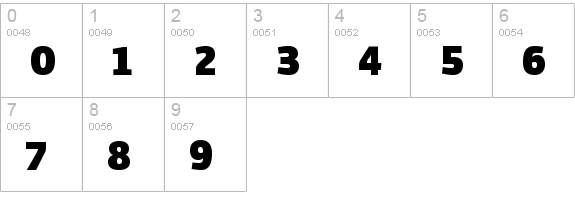
Vinkel Black Font Details
Vinkel Black is a maximum-weight, dramatic variant in the Vinkel typeface family \xE2\x80\x94 well suited to maximum-impact headlines, posters, and packaging.
Vinkel Black font is a modern and stylish typeface that exudes elegance and sophistication. With its clean lines and bold design, Vinkel Black is perfect for creating eye-catching headlines, logos, and branding materials. This versatile font is sure to make your designs stand out and leave a lasting impression. What's more, Vinkel Black font is available for free download at FontsMarket.com. This means you can easily access this beautiful typeface without any cost, making it a fantastic choice for both personal and commercial projects. Don't miss out on the opportunity to enhance your designs with the sleek and contemporary Vinkel Black font!